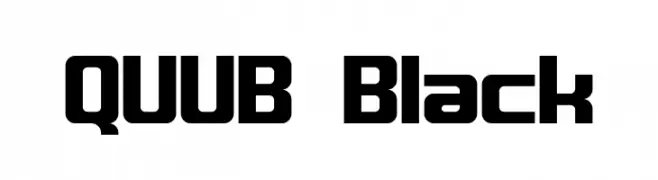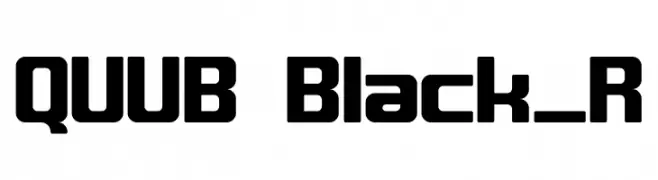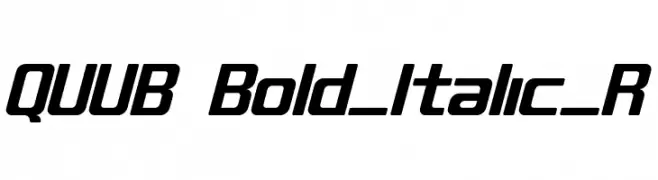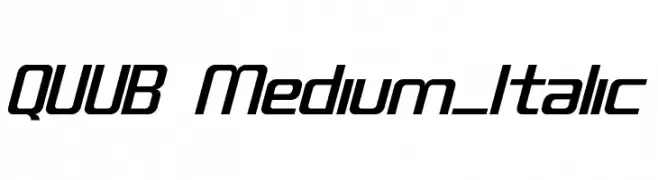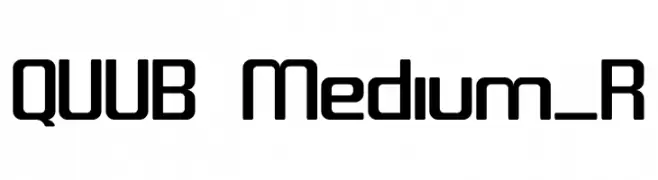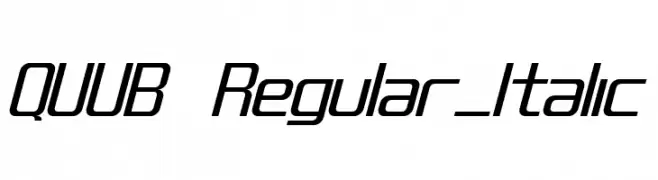
A modern, geometric font with a square-like structure and consistent design.
A bold, italicized font with a modern and dynamic style.
A modern, italic font with geometric precision and a dynamic slant.
A bold, geometric font with rounded edges and a modern style.
A modern, italicized font with a sleek and futuristic design.
A bold, geometric font with rounded corners and a modern style.
A modern, geometric font with rounded edges and consistent stroke width.